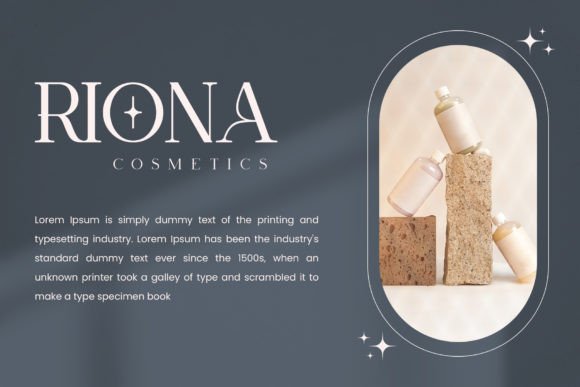
Twintale Font: A Timeless Serif Font for Elegant Designs
The Twintale Font is a sophisticated and refined serif font that has gained popularity among designers and typography enthusiasts. Its balanced, smooth, elegant, and stylish design makes it an ideal choice for various applications, including invitation card designs, company logos, movie titles, movie names, business cards, book titles, brand names, and more.
Key Features of Twintale Font
- Balanced Design: Twintale Font boasts a perfectly balanced design, ensuring that every element, from the serifs to the x-height, works in harmony to create a visually appealing font.
- Smooth Lines: The font features smooth lines that contribute to its elegant and sophisticated look, making it suitable for designs that require a touch of refinement.
- Elegant Serifs: The serifs in Twintale Font are designed to add a touch of luxury and sophistication to any design, making it perfect for high-end branding and advertising.
- Stylish Appearance: The font’s stylish appearance is sure to make your designs stand out, whether you’re working on a movie title, book cover, or company logo.
Use Cases for Twintale Font
- Invitation Card Designs: Twintale Font is an excellent choice for designing invitation cards for weddings, parties, and other events, adding a touch of elegance and sophistication.
- Company Logos: The font’s professional and refined design makes it suitable for creating company logos that convey a sense of luxury and expertise.
- Movie Titles and Names: Twintale Font is perfect for movie titles and names, adding a touch of glamour and sophistication to your film’s branding.
- Business Cards: The font’s elegant design makes it an excellent choice for designing business cards that make a lasting impression.
- Book Titles and Brand Names: Twintale Font is also suitable for book titles and brand names, providing a professional and refined look that enhances your design.
Typography Tips for Using Twintale Font
To get the most out of Twintale Font, consider the following typography tips:
- Pair with Sans-Serif Fonts: Pair Twintale Font with sans-serif fonts to create a beautiful contrast that enhances your design.
- Use for Headings and Titles: Use Twintale Font for headings and titles to add a touch of elegance and sophistication to your design.
- Experiment with Font Sizes: Experiment with different font sizes to create visual hierarchy and emphasis in your design.
- Pay Attention to Kerning: Pay attention to kerning to ensure that the font looks balanced and visually appealing.
Design Inspiration with Twintale Font
Twintale Font is a versatile font that can be used in various design projects. Here are some design inspiration ideas to get you started:
- Wedding Invitations: Design elegant wedding invitations using Twintale Font, adding a touch of sophistication and romance.
- Movie Posters: Create stunning movie posters using Twintale Font, adding a touch of glamour and excitement.
- Brand Identity: Develop a professional brand identity using Twintale Font, conveying a sense of luxury and expertise.
- Book Covers: Design eye-catching book covers using Twintale Font, adding a touch of elegance and sophistication.
Benefits of Using Twintale Font
- Unique and Distinctive: Twintale Font is a unique and distinctive font that sets your design apart from others.
- High-Quality Design: The font features a high-quality design that ensures your design looks professional and refined.
- Easy to Read: Twintale Font is easy to read, making it suitable for designs that require clear communication.
- Versatile: The font is versatile and can be used in various design projects, from print to digital.
In conclusion, Twintale Font is a sophisticated and refined serif font that is perfect for designers and typography enthusiasts. Its balanced, smooth, elegant, and stylish design makes it an ideal choice for various applications, from invitation card designs to company logos, movie titles, and more. With its versatility, high-quality design, and ease of use, Twintale Font is a great addition to any design project.